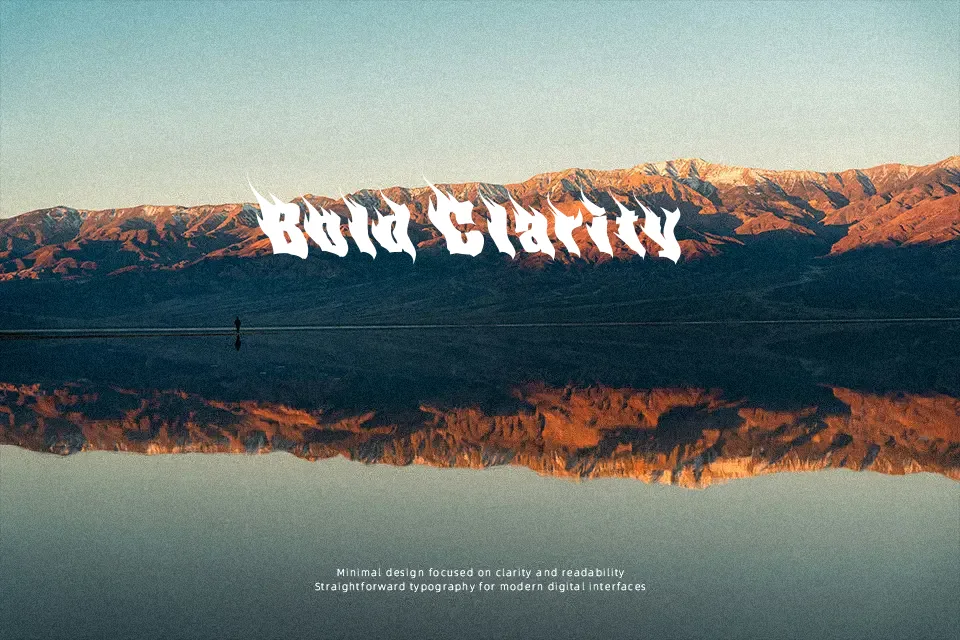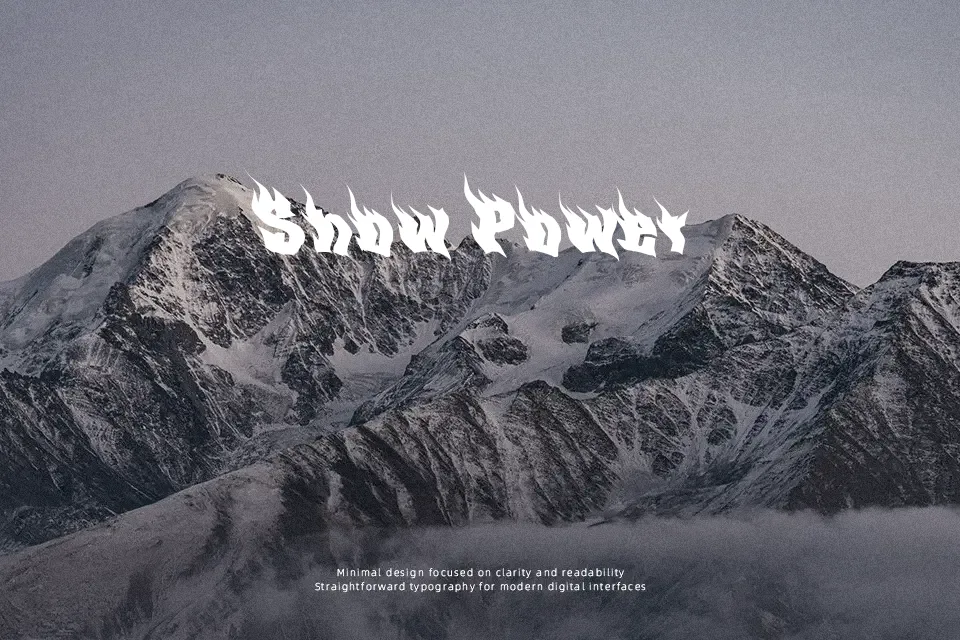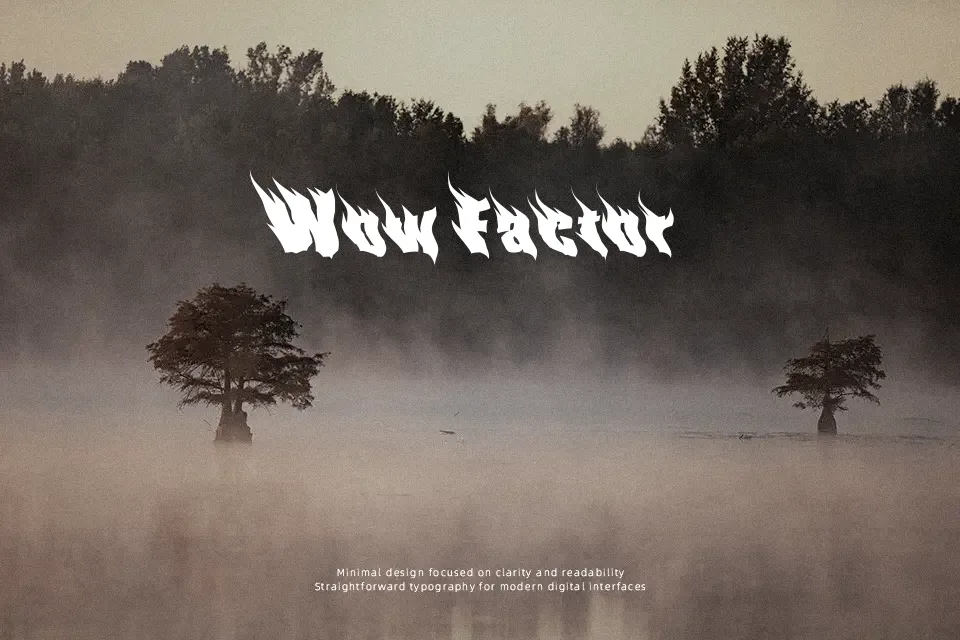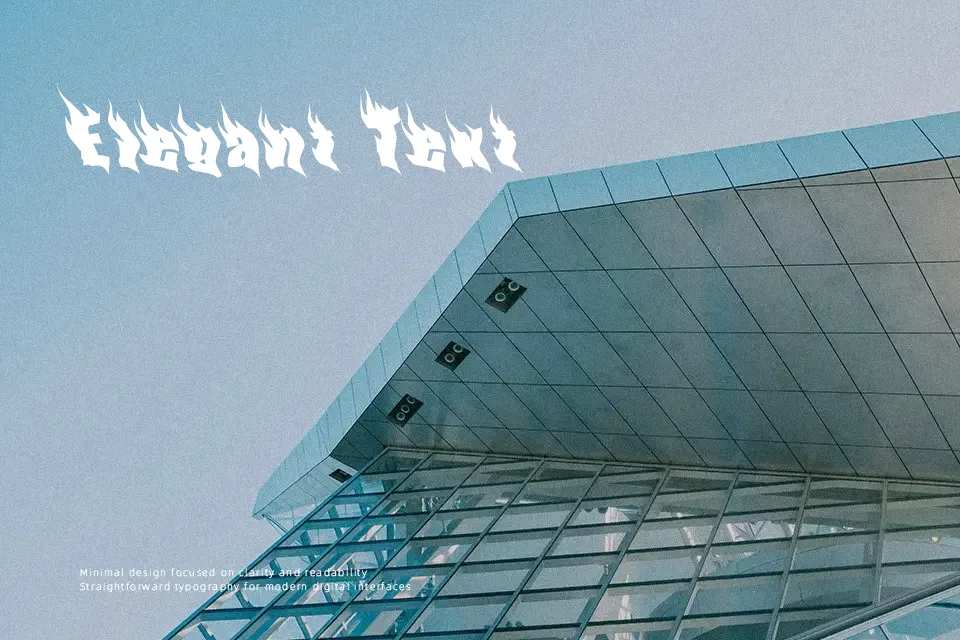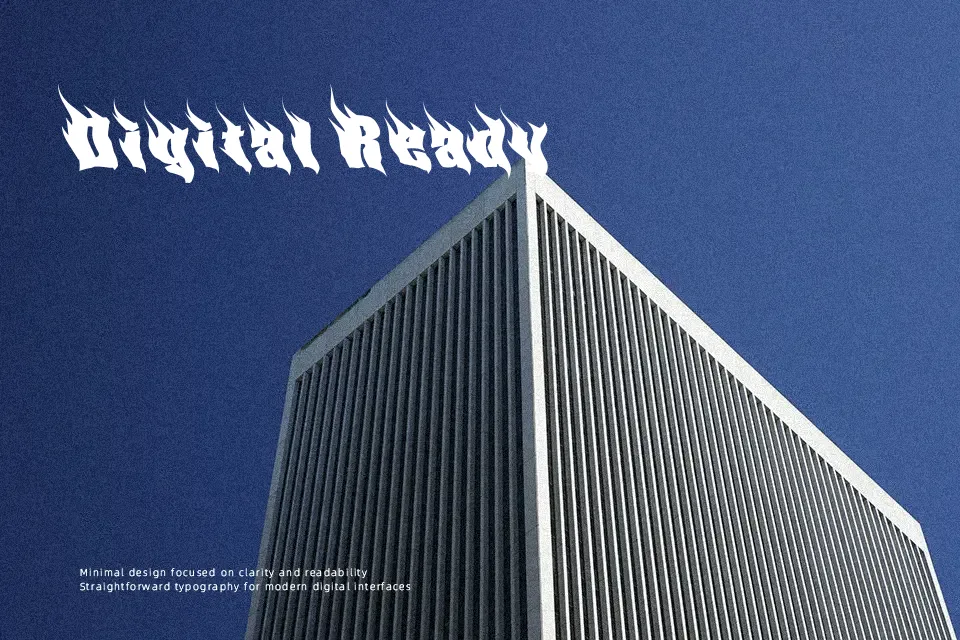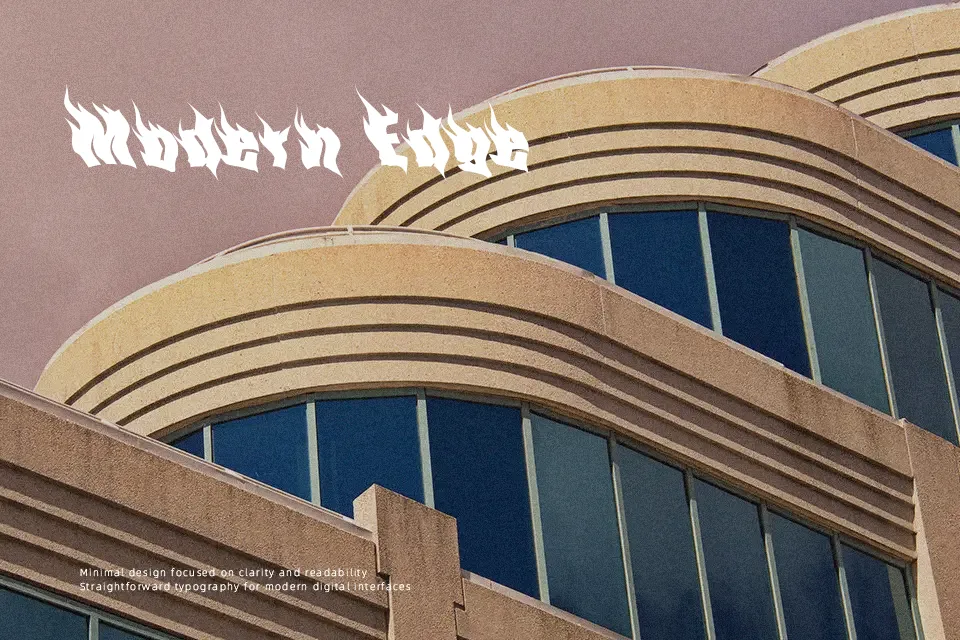
Phoenix Font
Phoenix Font works best as large display lettering, where its jagged contours, pointed terminals, and uneven flame-inspired shapes remain distinct. The uppercase forms carry the strongest visual impact, while the narrow internal spaces and decorative edges create an intentionally restless rhythm. Spacing appears compact enough for short titles and poster lines, and the heavy, sculpted strokes hold attention in logo-sized text. It suits dramatic themes more than neutral communication. The elaborate outlines become harder to parse at smaller sizes, so the typeface is a less comfortable choice for captions or sustained reading.
Best For: fantasy film titles,concert posters,halloween party graphics,dramatic logo concepts
Perfect for film, halloween, and headline, with a creative and decorative style.